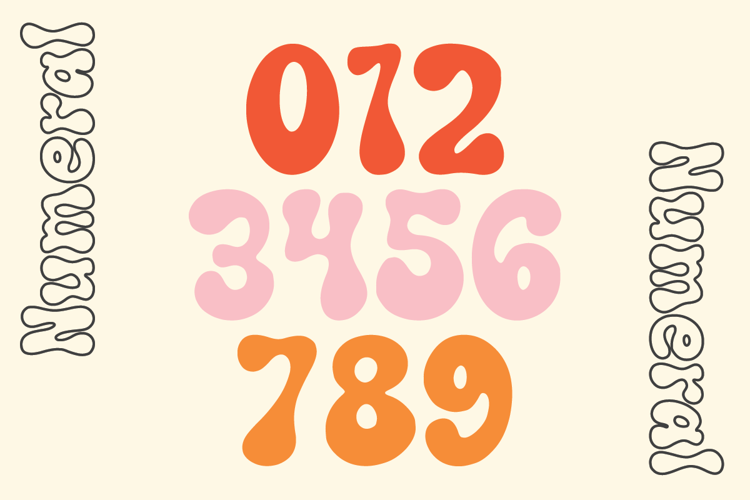
Monte Disney Font
Hannie Display Font - This font would be perfect for photography, watermarks, social media posts, advertisements, logos & branding, invitations, product design, labels, stationery, product packaging, special events, and other projects. This font is PUA encoded which means you can access all glyphs with ease!